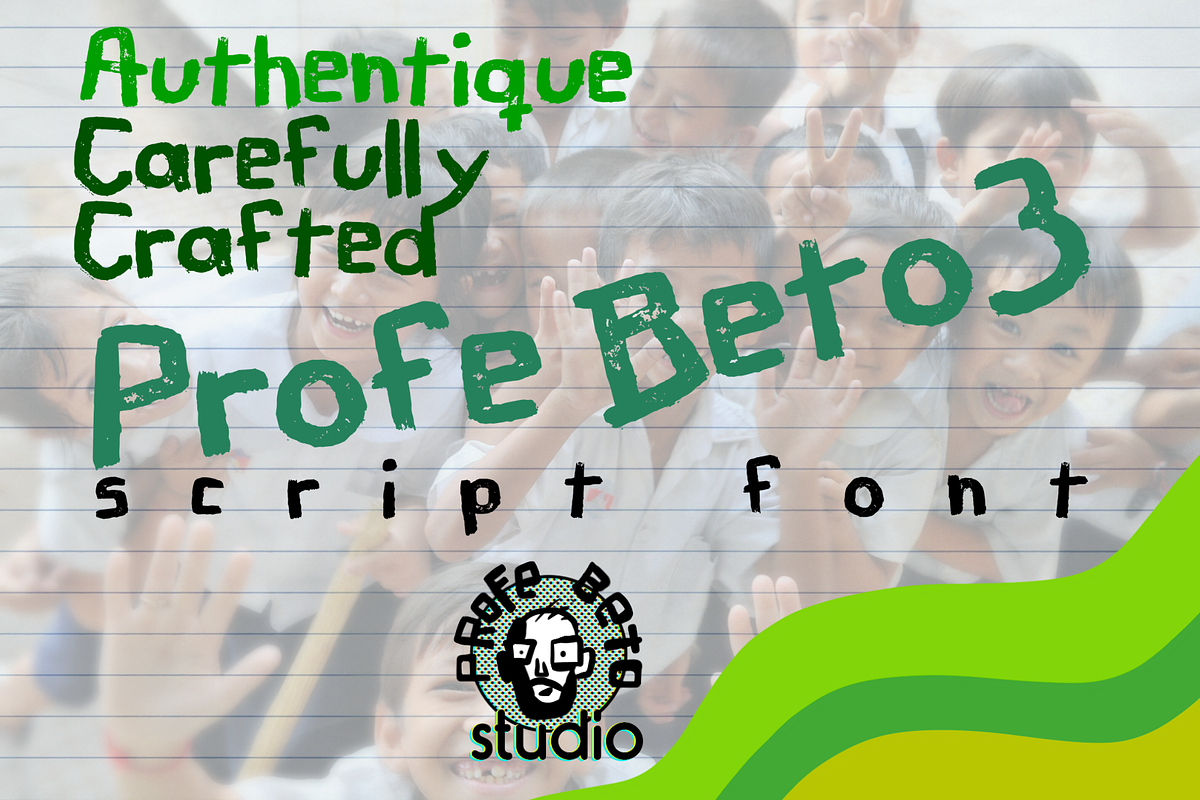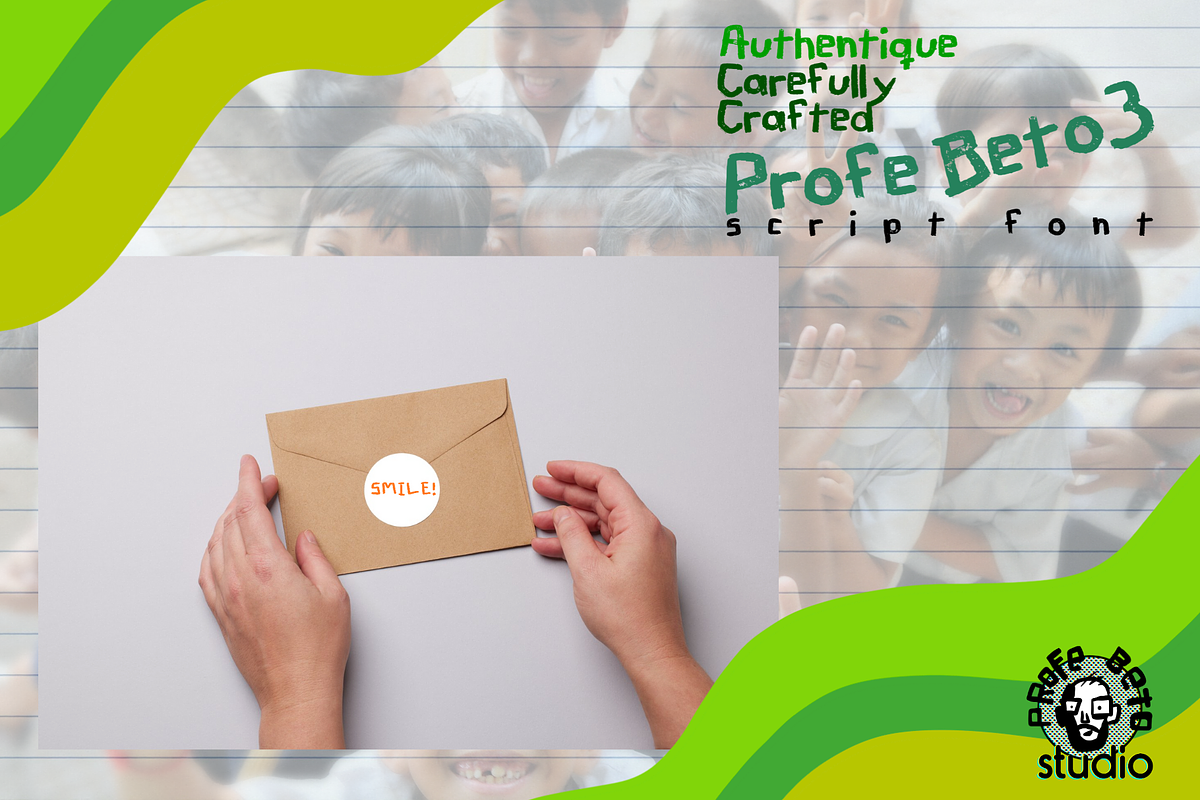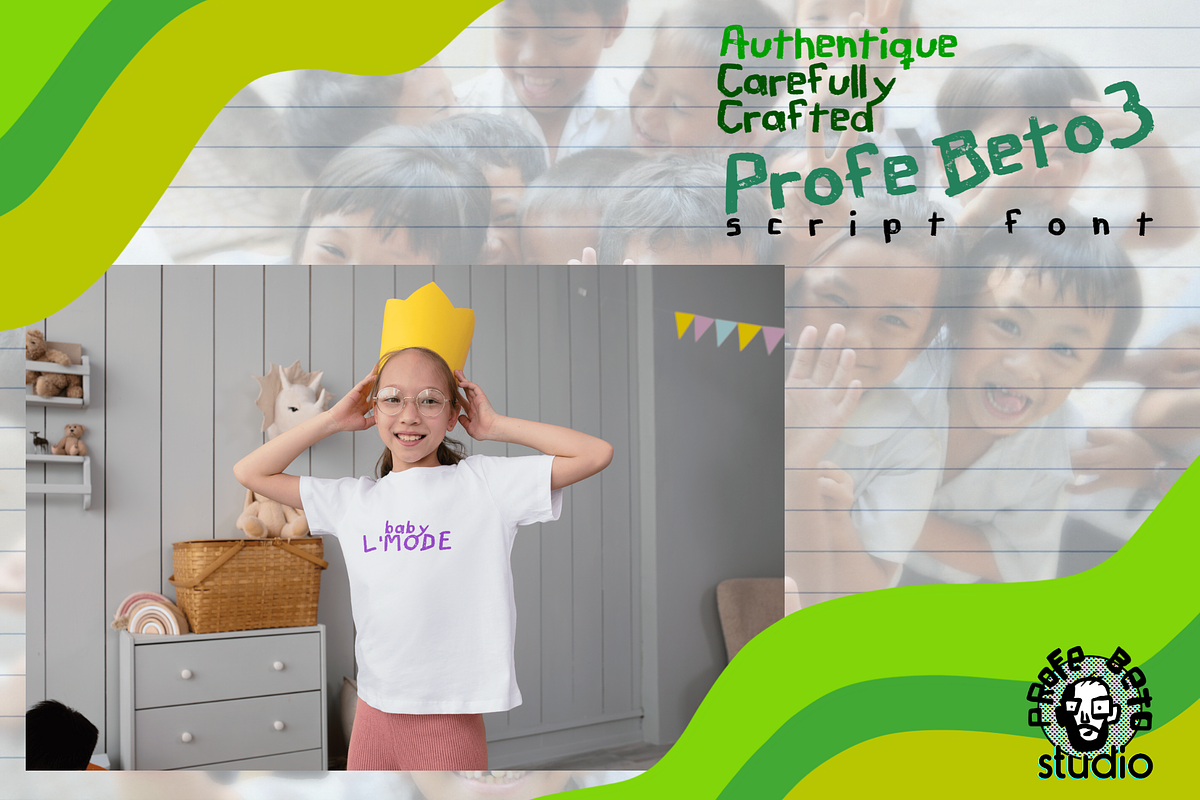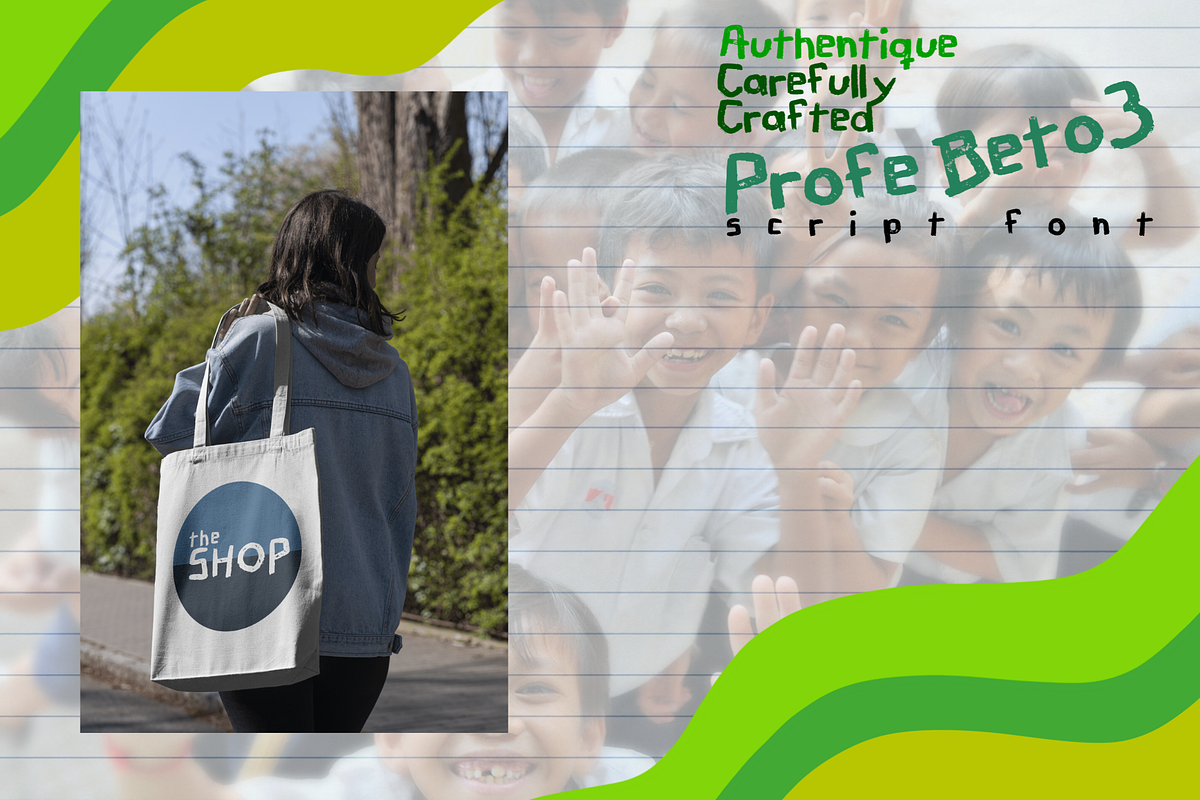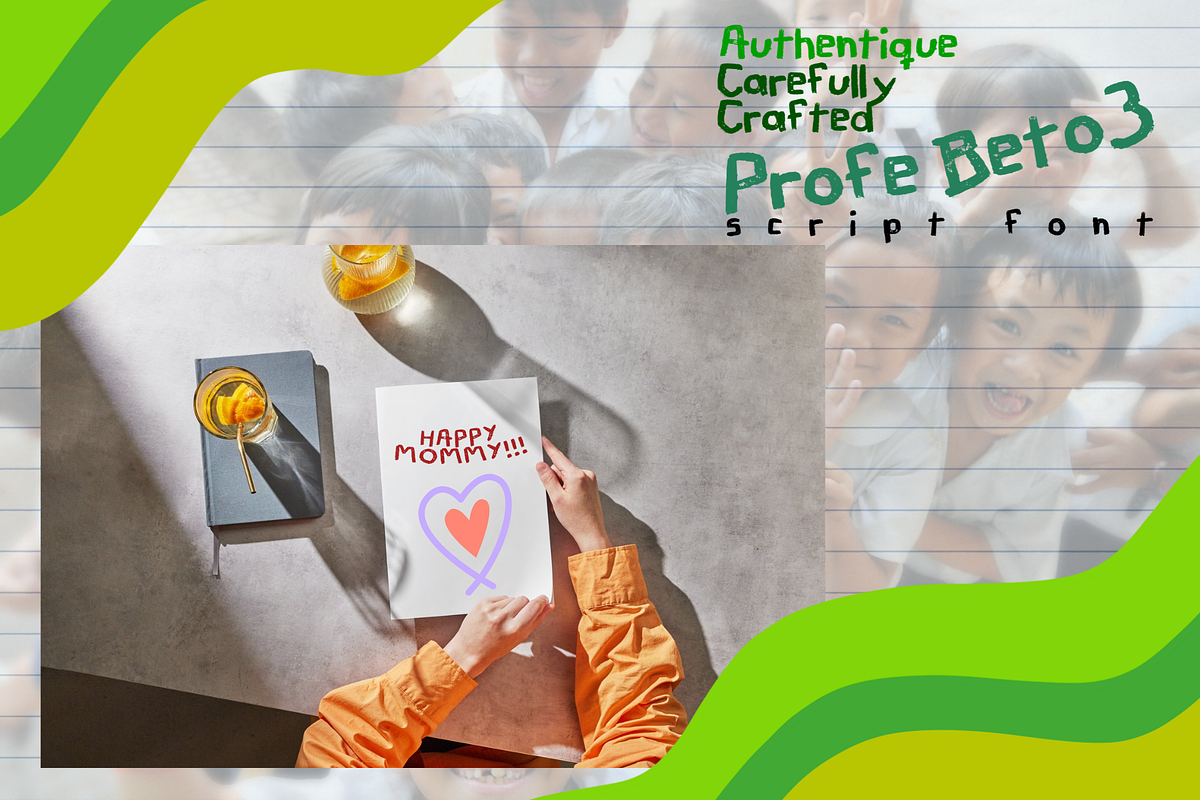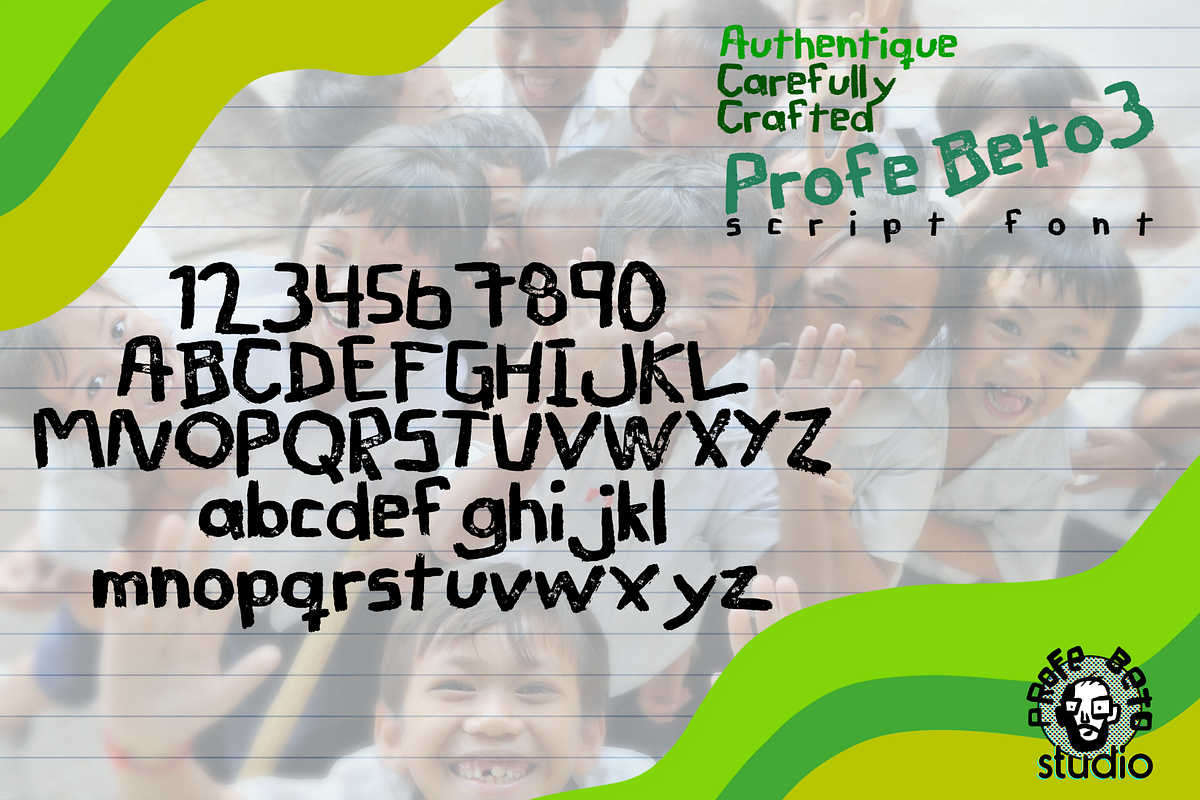
Profebeto3 Script Font
Introduce young readers to the joy of reading with our Handmade Kid-Friendly Font! Perfect for children, this clear and easy-to-read font is ideal for vibrant, colorful signage and a wide range of children's products. Available in a versatile bundle, this font is designed to captivate and educate, making it perfect for enhancing any project aimed at young audiences.
Handmade Kid-Friendly Font:
Our font features playful, hand-drawn characters that are easy for children to read, making it perfect for educational materials, storybooks, and colorful signs.
Comprehensive Bundle:
High-quality, hand-drawn font files Clear and easy-to-read design Ideal for colorful, child-friendly signage Suitable for a variety of children's products Educational Content:
Encourage literacy and cognitive development with this fun and engaging font. Perfect for classroom activities, homeschooling, or at-home learning.
High-Quality Design:
Crafted with attention to detail, this font features charming, playful characters that will delight and engage young learners.
Versatile Usage:
Ideal for use in classrooms, homeschooling environments, or as a fun at-home activity. This font is great for sparking creativity and enhancing literacy.
Bring the joy of reading to your little ones with our Handmade Kid-Friendly Font, perfect for sparking curiosity and enhancing educational development.